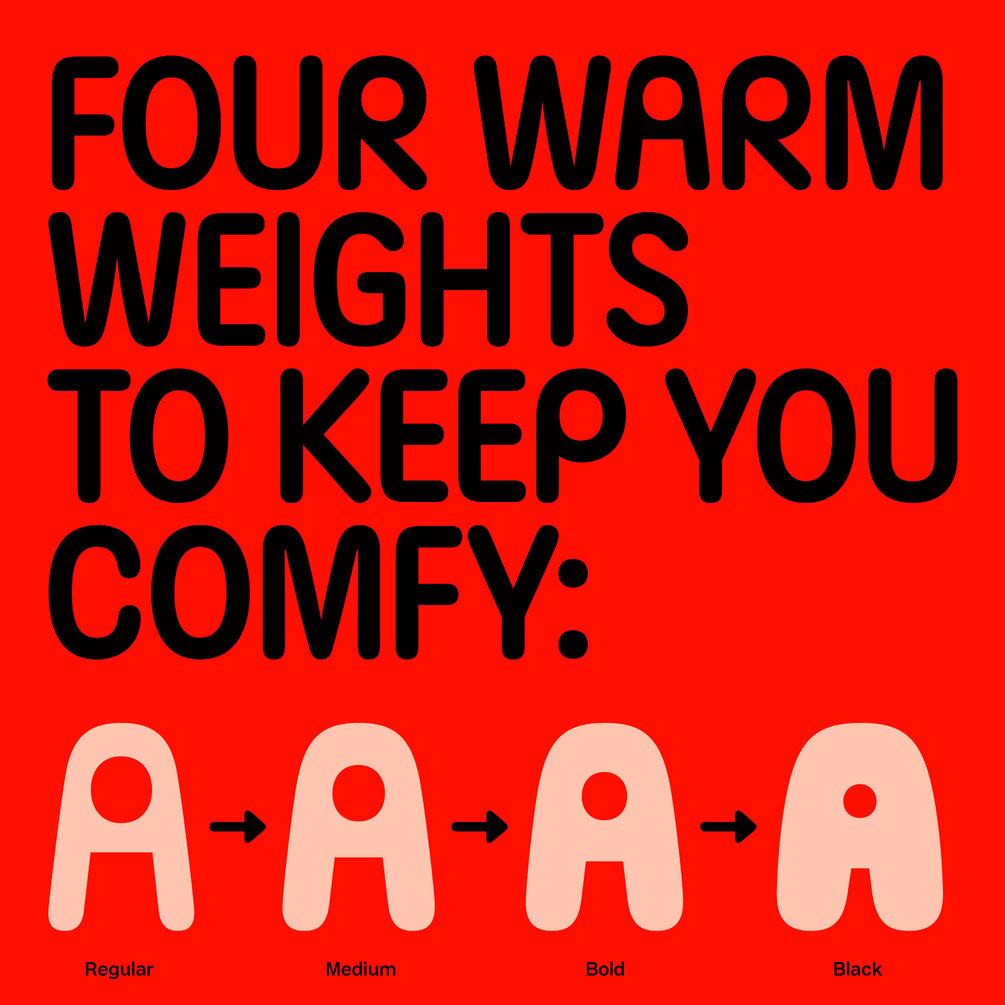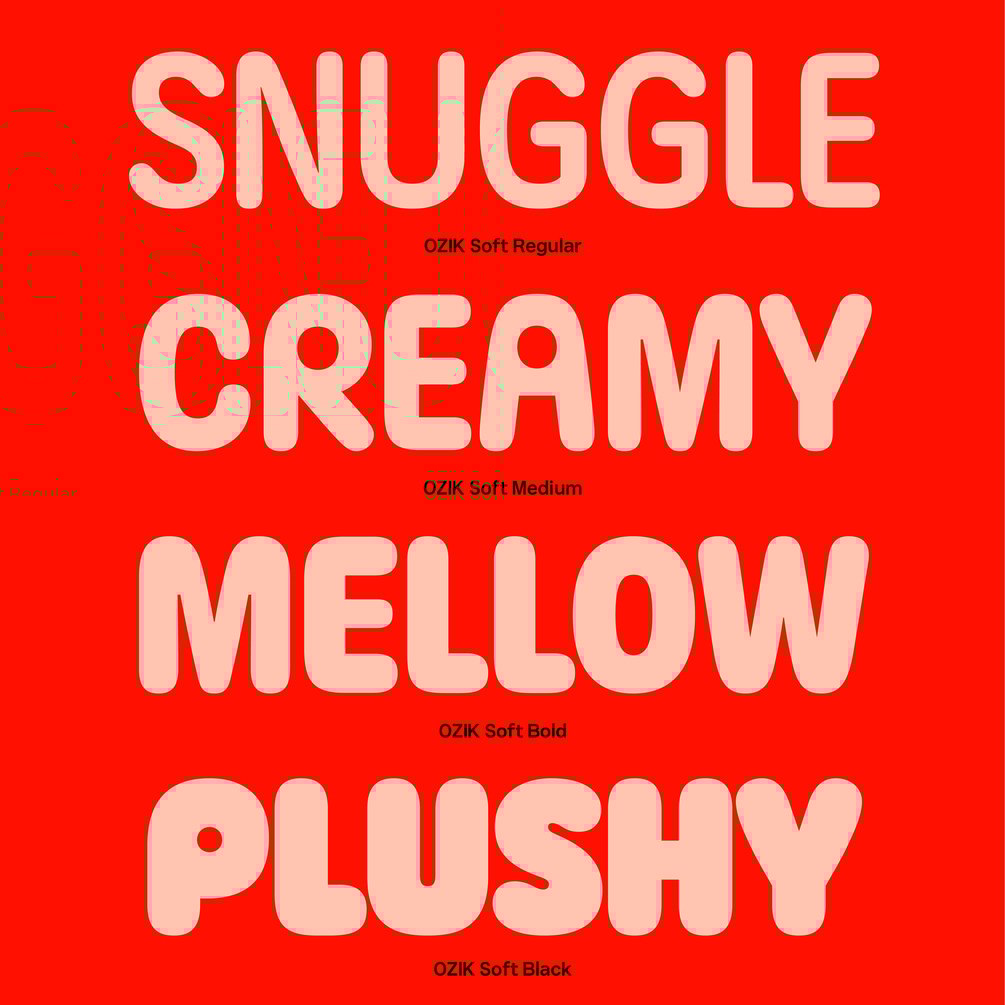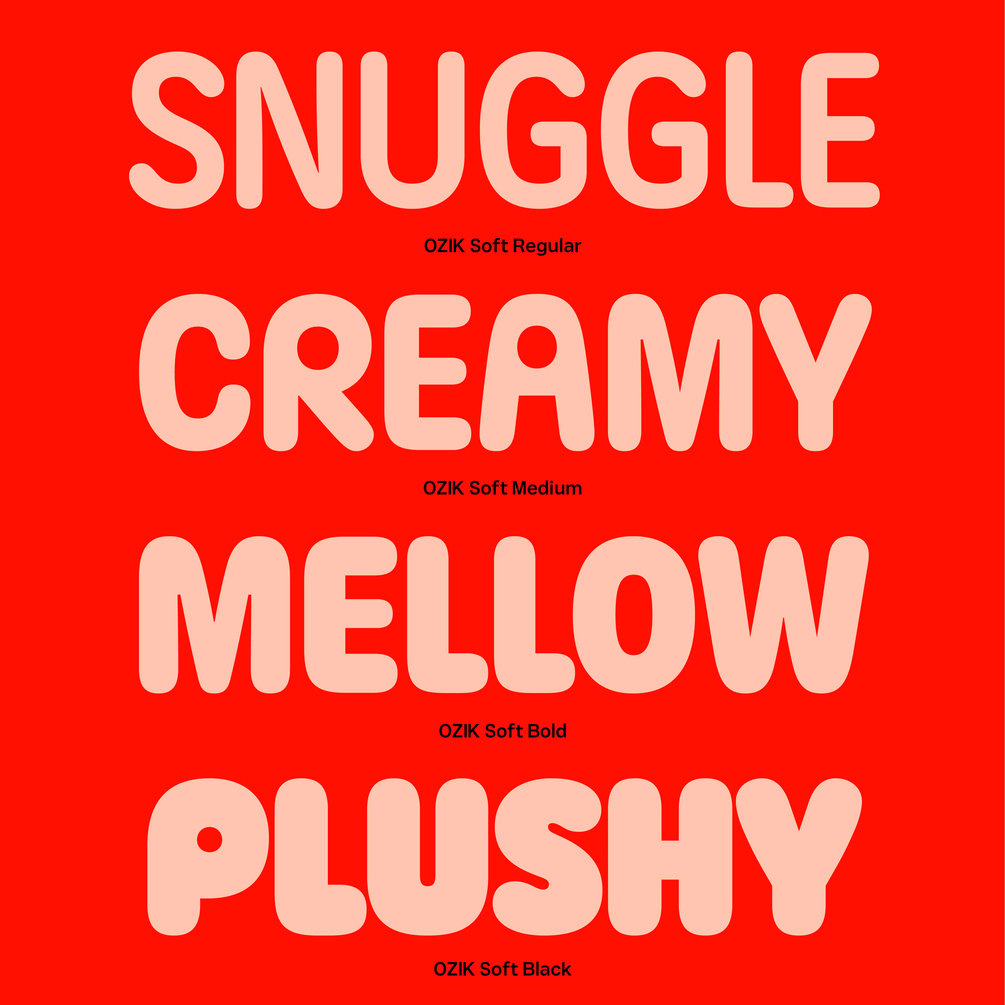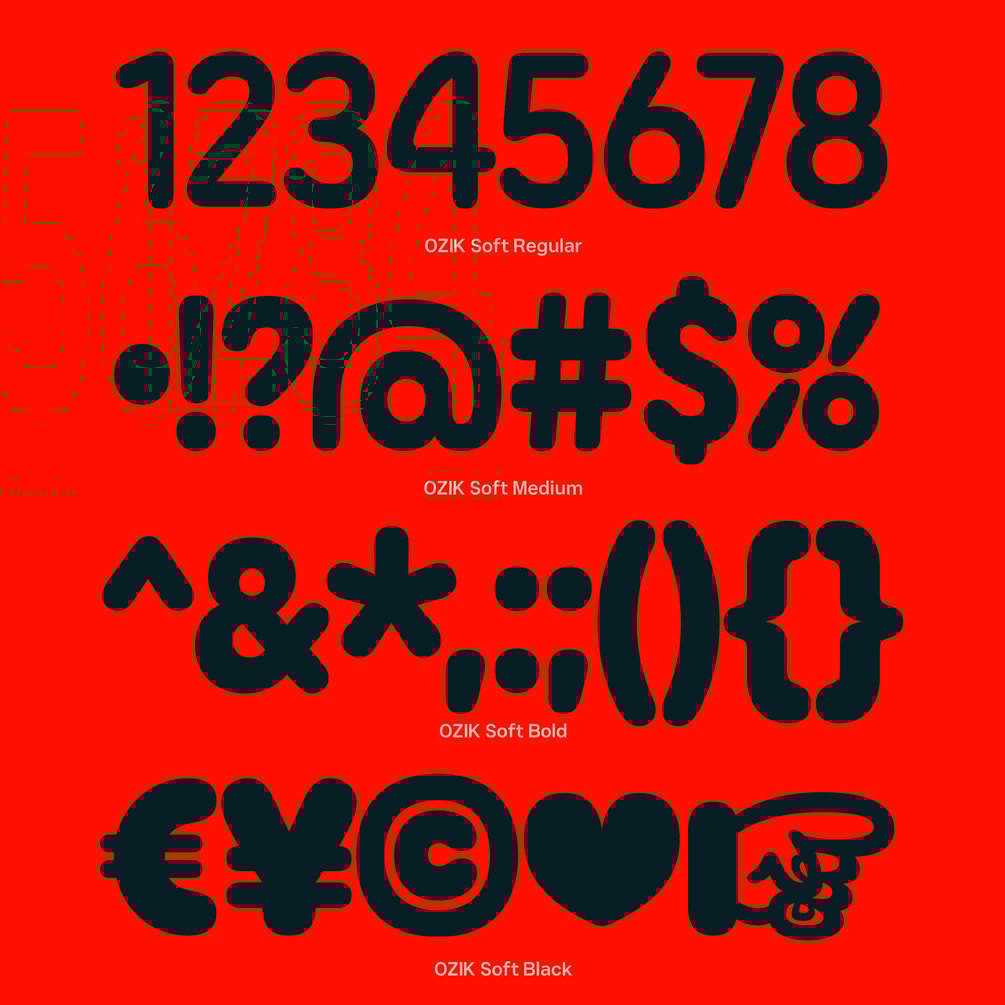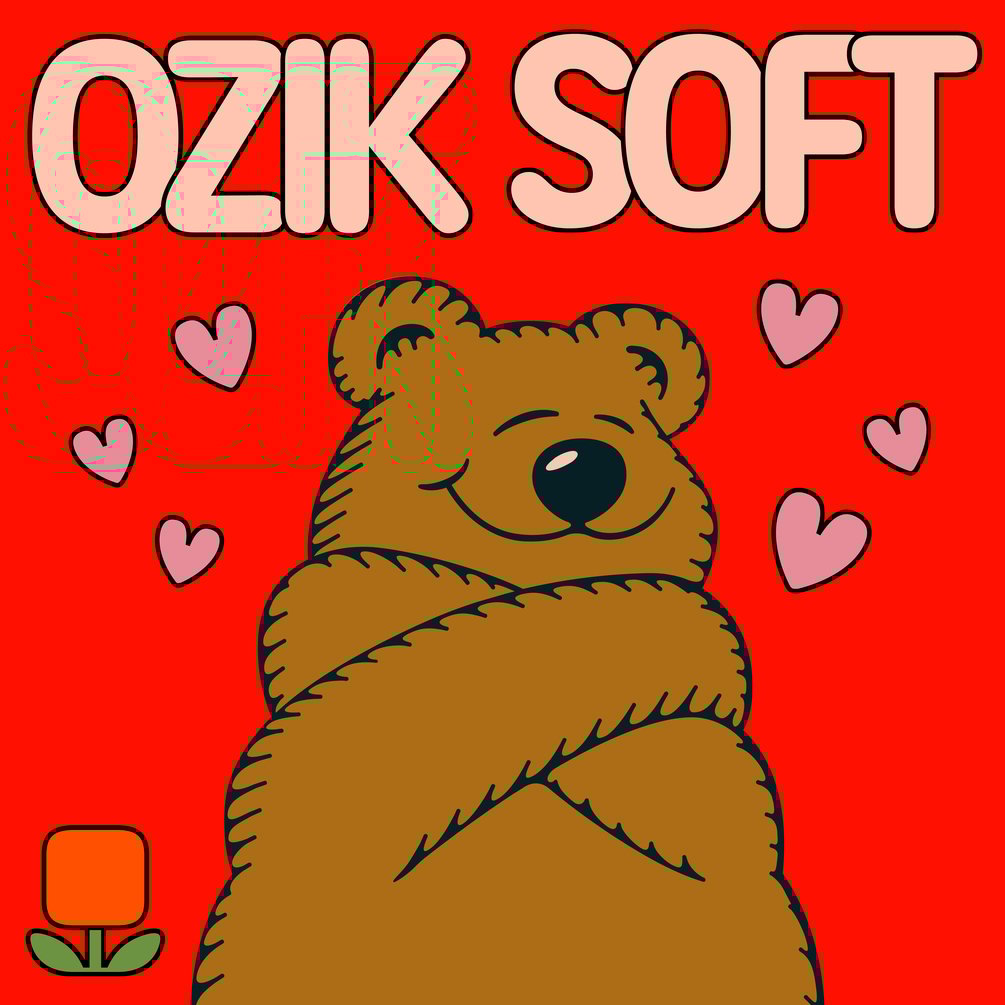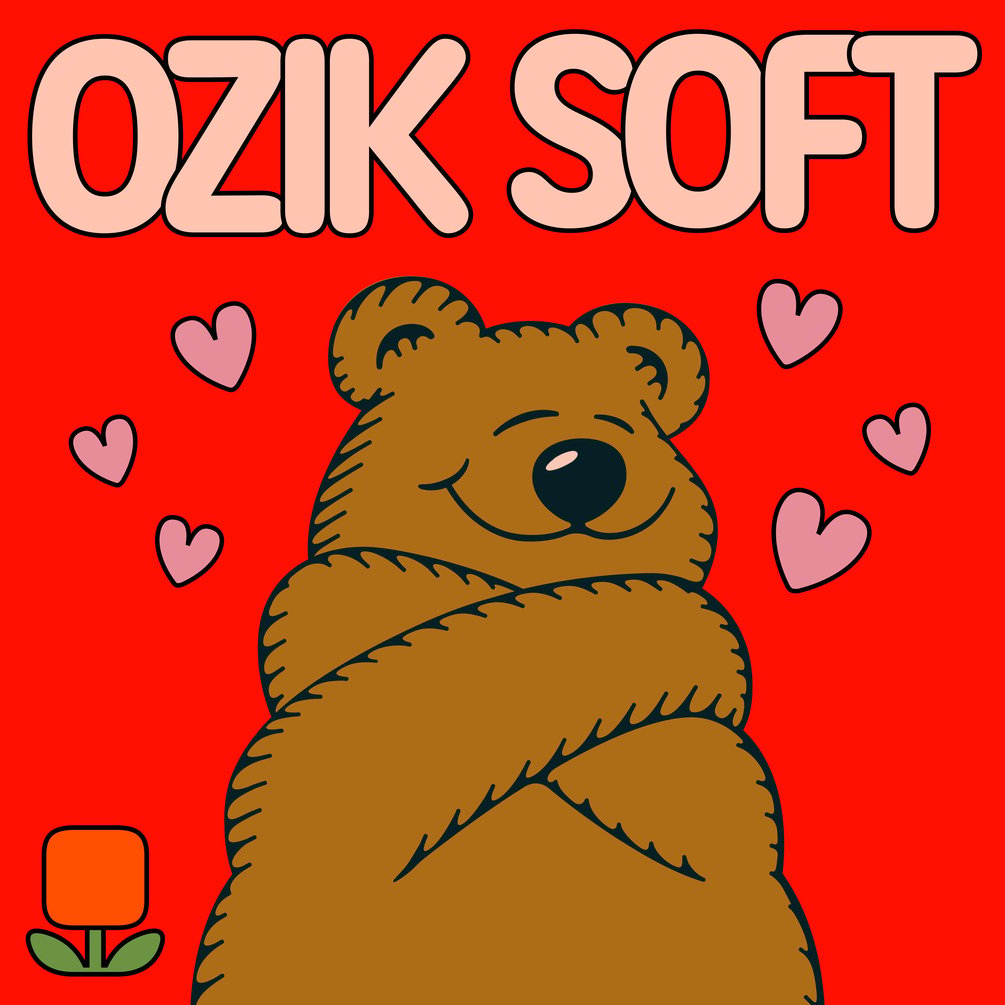
OZIK Soft
A friendly round font inspired by Nuform Type's original OZIK. It keeps the charm of its popular predecessor with rounded edges and welcoming curves, perfect for any friendly design need. It's like giving your words a warm hug on a chilly design day.